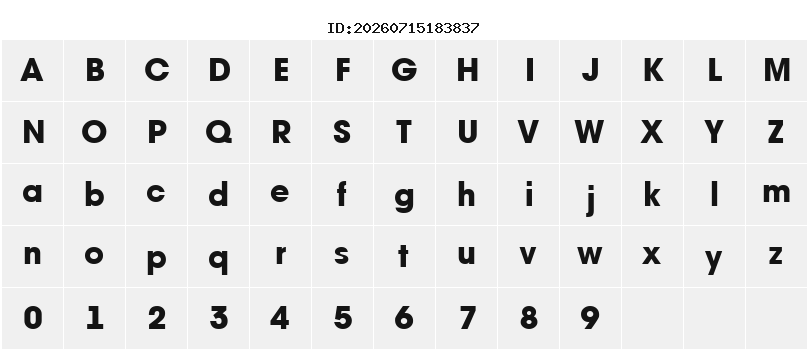
• Font Name: a_AvanteTck
• Font Style: Heavy
• Full Font Name: a_AvanteTck Heavy
• PostScript Name: AAvanteTckHeavy
About a_AvanteTck.ttf
a_AvanteTck.ttf is a modern, elegant sans-serif font designed for ultimate readability and visual harmony. Perfect for branding, headlines, web design, and print materials.